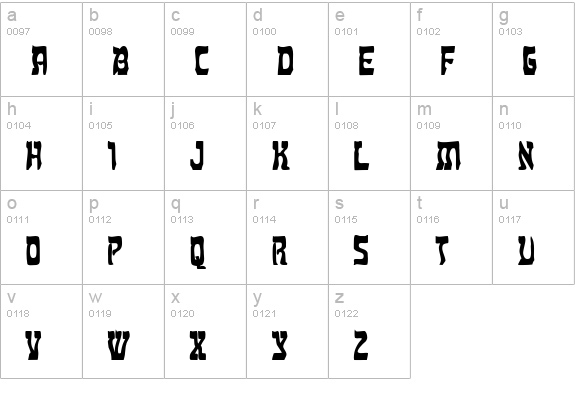
Kosher Bold is a strong, high-contrast variant in the Kosher typeface family \xE2\x80\x94 well suited to headlines, attention-grabbing titles, and strong calls-to-action.
Introducing Kosher Bold font, a stylish and modern typeface perfect for creating eye-catching designs. With its bold and distinctive letterforms, Kosher Bold commands attention and adds a touch of sophistication to any project. This versatile font is ideal for headlines, logos, posters, and more. What sets Kosher Bold apart is its unique blend of elegance and readability, making it suitable for a wide range of applications. Whether you're designing a brand identity or crafting a striking poster, Kosher Bold will ensure your message stands out. Best of all, Kosher Bold is available for free download at FontsMarket.com, making it accessible to designers of all levels. Don't miss out on the opportunity to enhance your projects with this exceptional font. Download Kosher Bold today and elevate your designs to the next level.